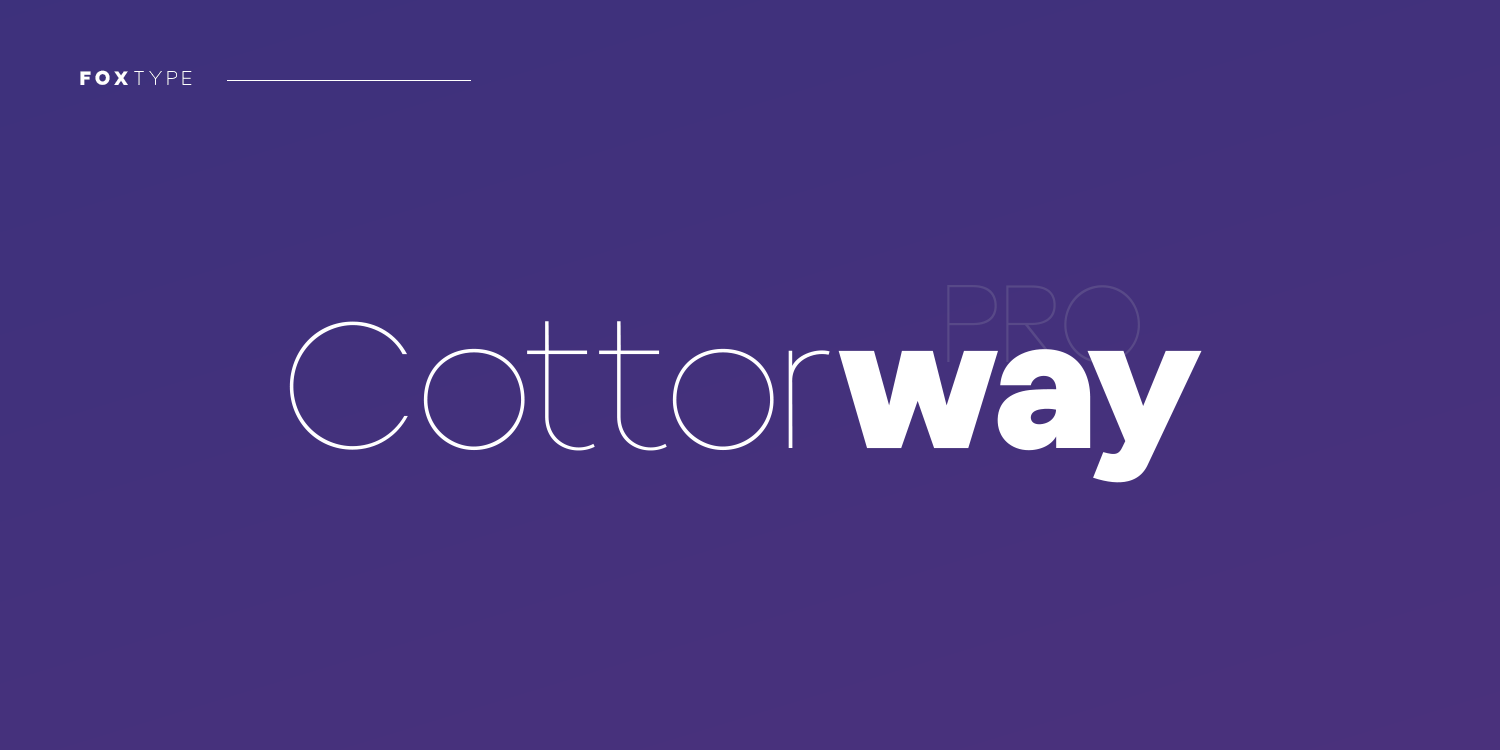
The Cottorway Pro Font is an excellent choice for designs that demand a blend of timeless elegance, a handcrafted touch, and professional versatility. Imagine it gracing the labels of artisanal food products, lending a refined yet approachable feel to boutique branding, or adding a sophisticated charm to personalized stationery. It's also perfectly suited for captivating editorial layouts in lifestyle magazines, unique packaging for bespoke goods, and any project where you want to evoke a sense of authenticity, quality, and understated luxury. With its balanced forms and often subtle stylistic details, the Cottorway Pro Font is ideal for projects that aim for visual polish and a memorable impression rooted in craftsmanship.
What makes the Cottorway Pro Font truly exciting is its remarkable ability to bridge the gap between traditional aesthetics and modern demands. It feels genuinely crafted, giving your designs an immediate sense of warmth and exclusivity, while its "Pro" designation suggests meticulous design and extensive functionality. This font is designed for excellent legibility across various applications, from elegant headlines to readable body text. It injects a sense of refined artistry and professional credibility into your designs, ensuring your message is not just seen, but appreciated for its thoughtful execution. The Cottorway Pro Font Free Download offers a fantastic opportunity to infuse your projects with this distinctive character.
The Cottorway Pro Font family is typically designed to offer a comprehensive range of weights and styles, maximizing its adaptability for diverse design requirements. As a "Pro" font, it often includes advanced typographic features. While specific family members can vary, you can typically expect to find:
• Cottorway Pro Thin
• Cottorway Pro Light
• Cottorway Pro Regular
• Cottorway Pro Medium
• Cottorway Pro SemiBold
• Cottorway Pro Bold
• Cottorway Pro Black
• Cottorway Pro Italic (or Oblique versions for various weights)
• Extended Language Support (covering a wide range of Latin-based languages)
• OpenType Features (such as ligatures, alternate characters, small caps, and numeral variations for enhanced typographic control)
These extensive variations provide designers with ample flexibility to create intricate visual hierarchies, from delicate accents to impactful headlines, ensuring optimal performance across a wide array of applications while maintaining the font's signature elegant and professional appearance.